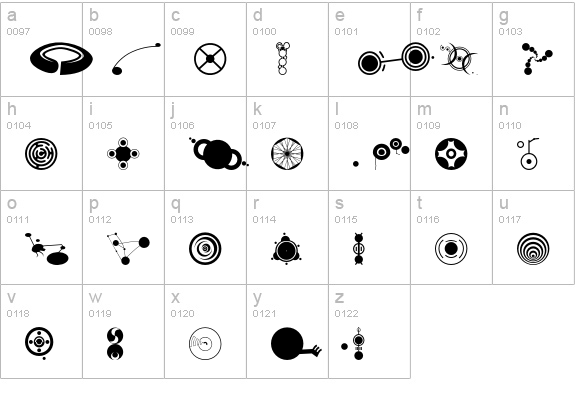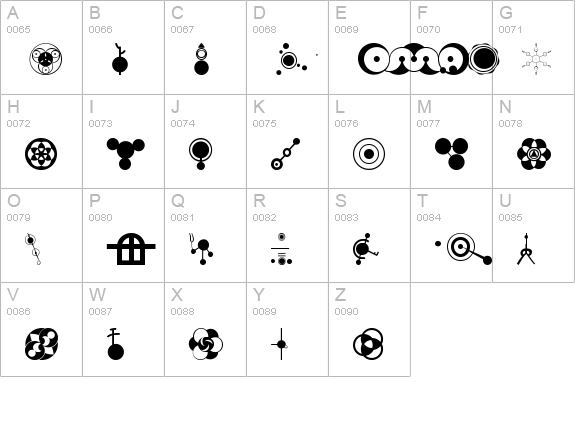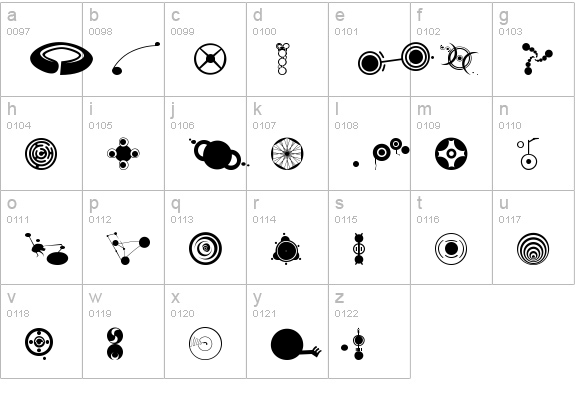
CropBatsAOE font is a unique and versatile typeface that is perfect for adding a touch of whimsy and character to your designs. This font features a collection of charming crop-themed icons and symbols that are perfect for adding a playful touch to any project. Whether you're creating a logo, poster, or social media graphic, CropBatsAOE font is sure to make your design stand out. What's even better is that CropBatsAOE font is completely free to download! You can easily access this delightful font at FontsMarket.com and start incorporating its fun and quirky elements into your designs today. With its easy-to-read style and wide range of crop-related symbols, CropBatsAOE font is a must-have addition to any designer's toolkit. Download it now and let your creativity flourish with this charming and whimsical typeface.